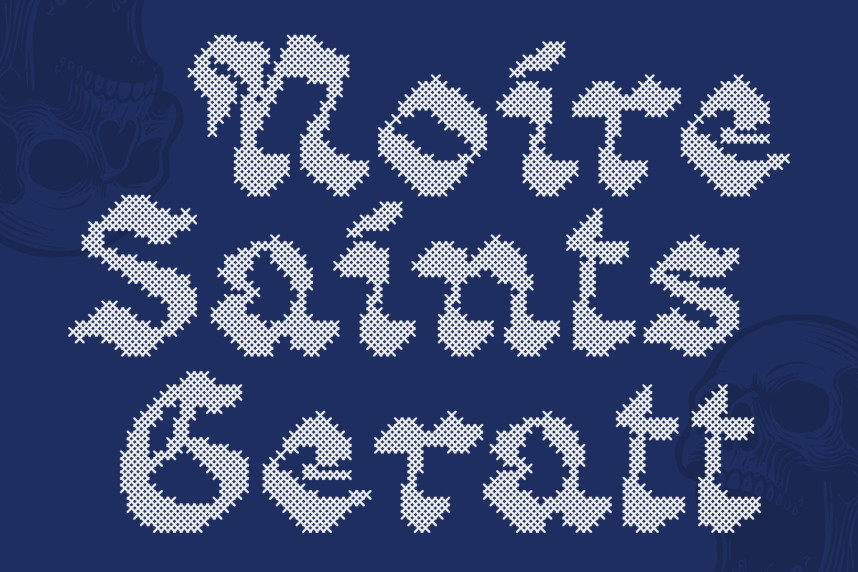
CS Rolins Stitched Font
CS Rolins Stitched Font – Ornate Blackletter Font
Classic Blackletter with Rounded Elegance
This is an ornate blackletter display font that blends historical craftsmanship with subtle modern refinement. Inspired by traditional gothic script, it features dramatic strokes, decorative flourishes, and slightly rounded characters that soften the classic blackletter edge. This balance creates a typeface that feels both powerful and approachable, making it ideal for designs that want to capture heritage while remaining contemporary.